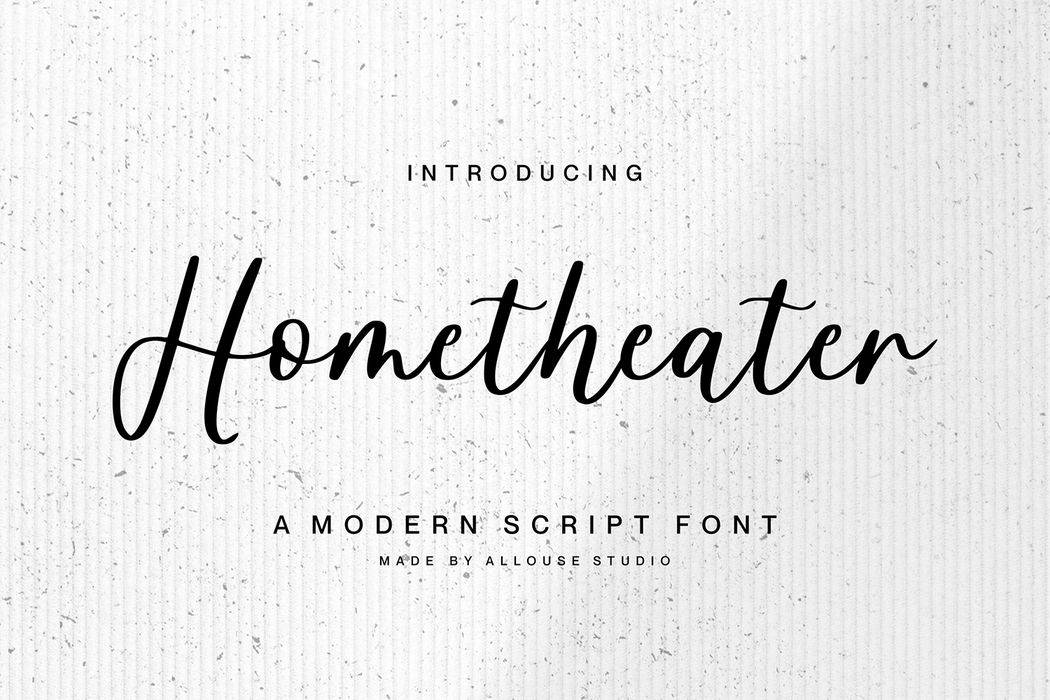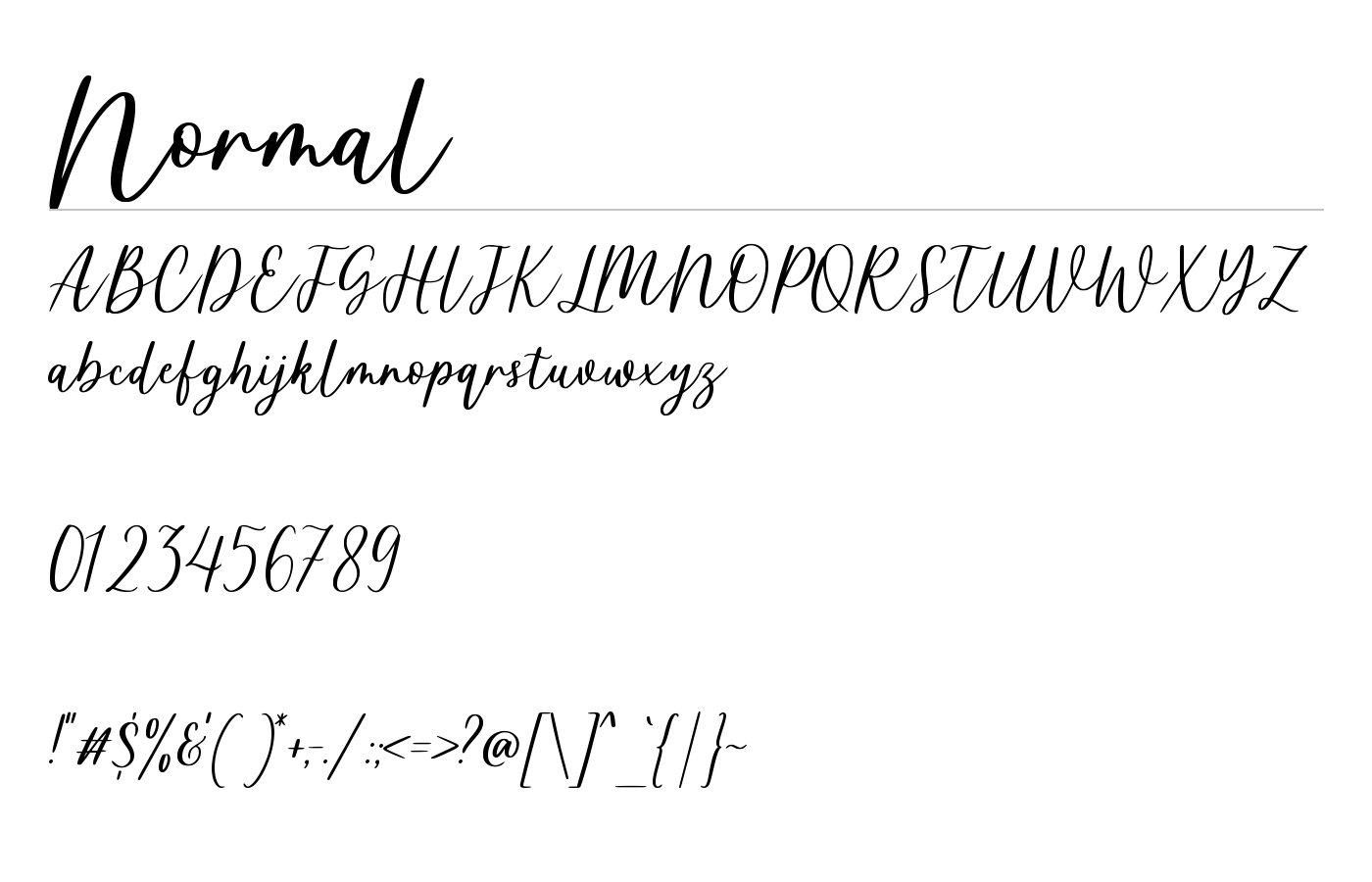
Hometheater is a delicate, elegant script font with a light weight and narrow width that gives it a graceful and refined appearance. Its smooth, flowing strokes and slightly slanted letterforms create a handwritten, artistic feel, making it ideal for sophisticated branding, invitations, and stylish editorial uses where a personal touch is desired. This font works best in headlines or decorative text where its charm and elegance can stand out.
Hometheater Font
About Hometheater Font